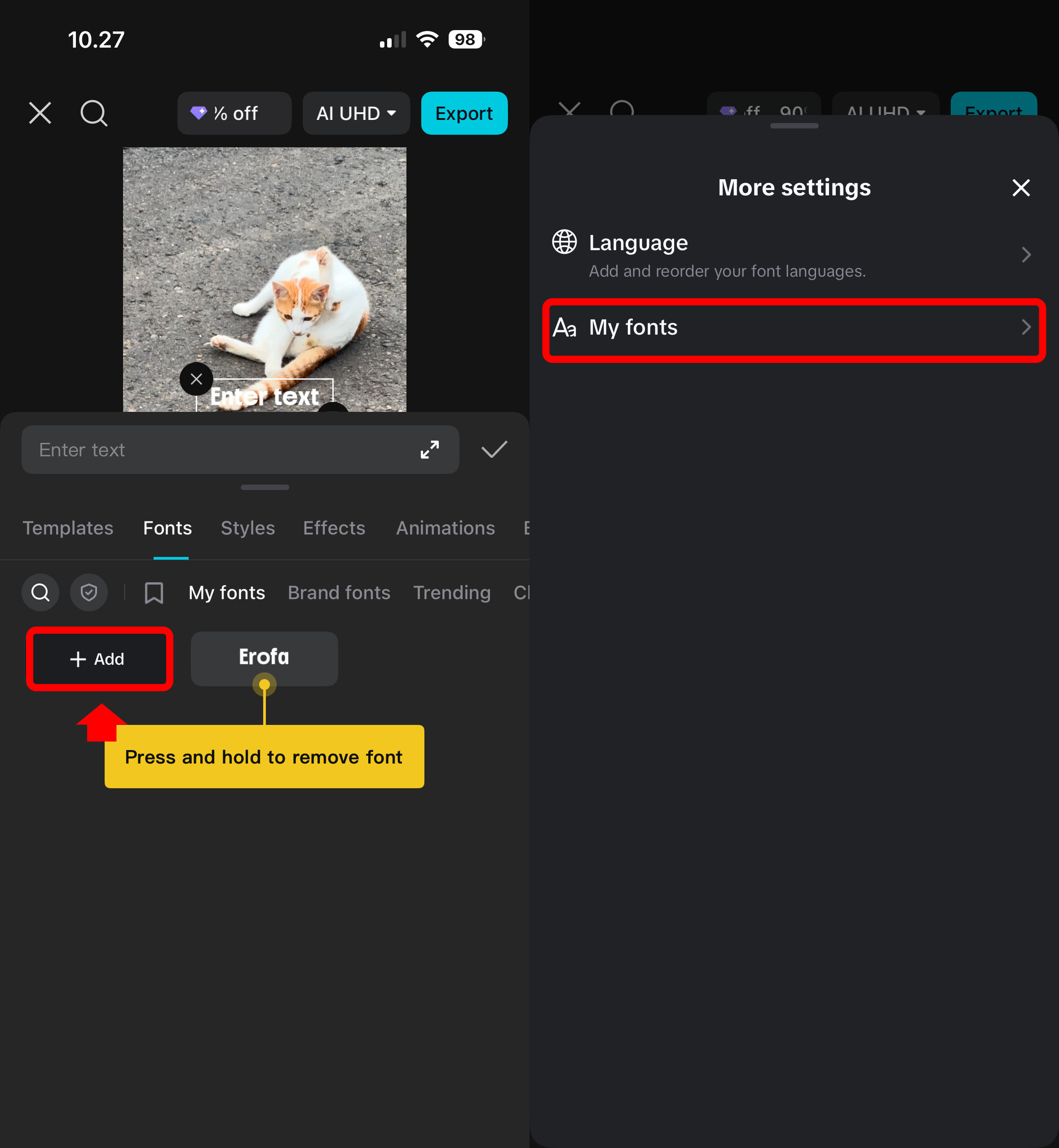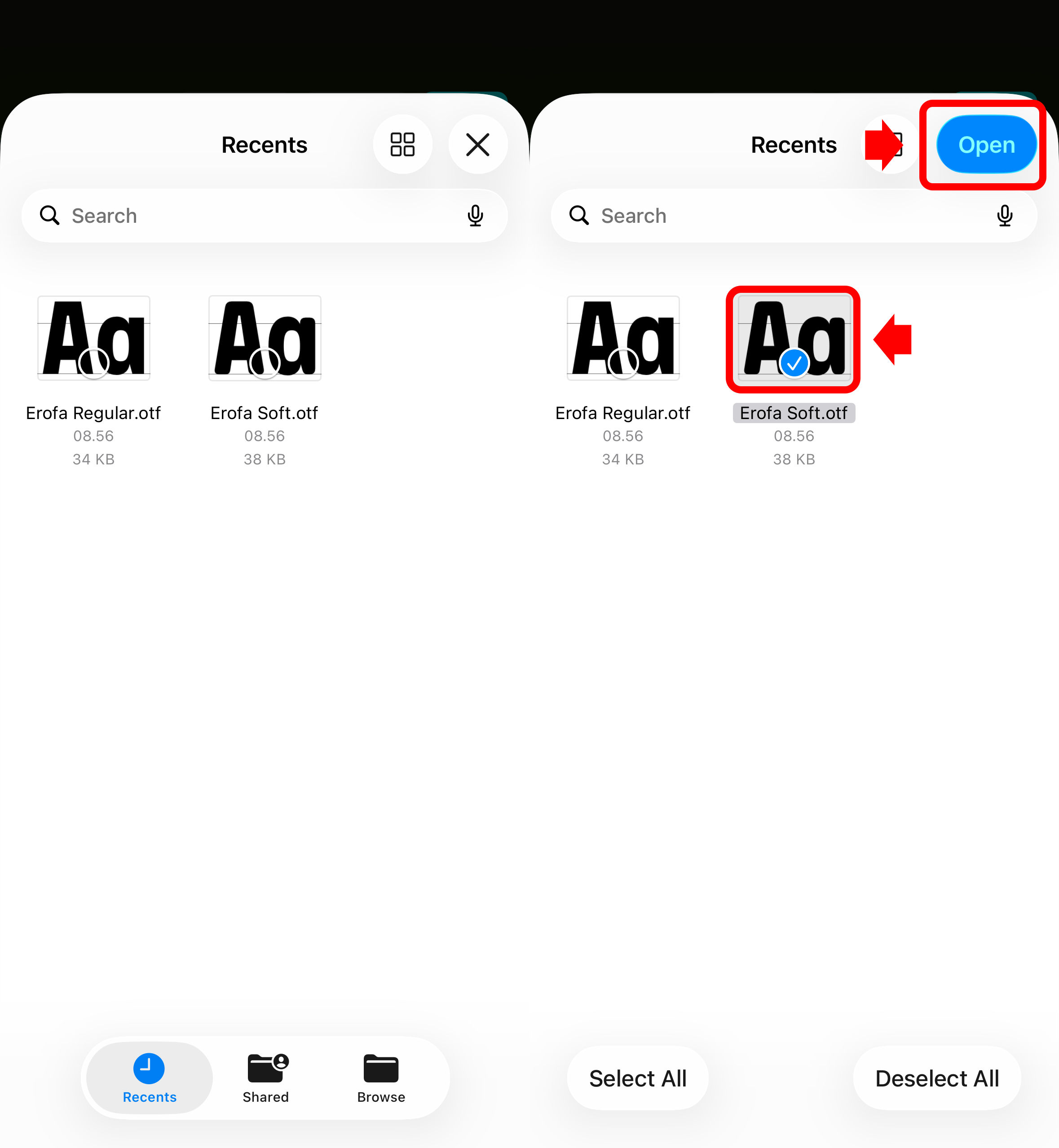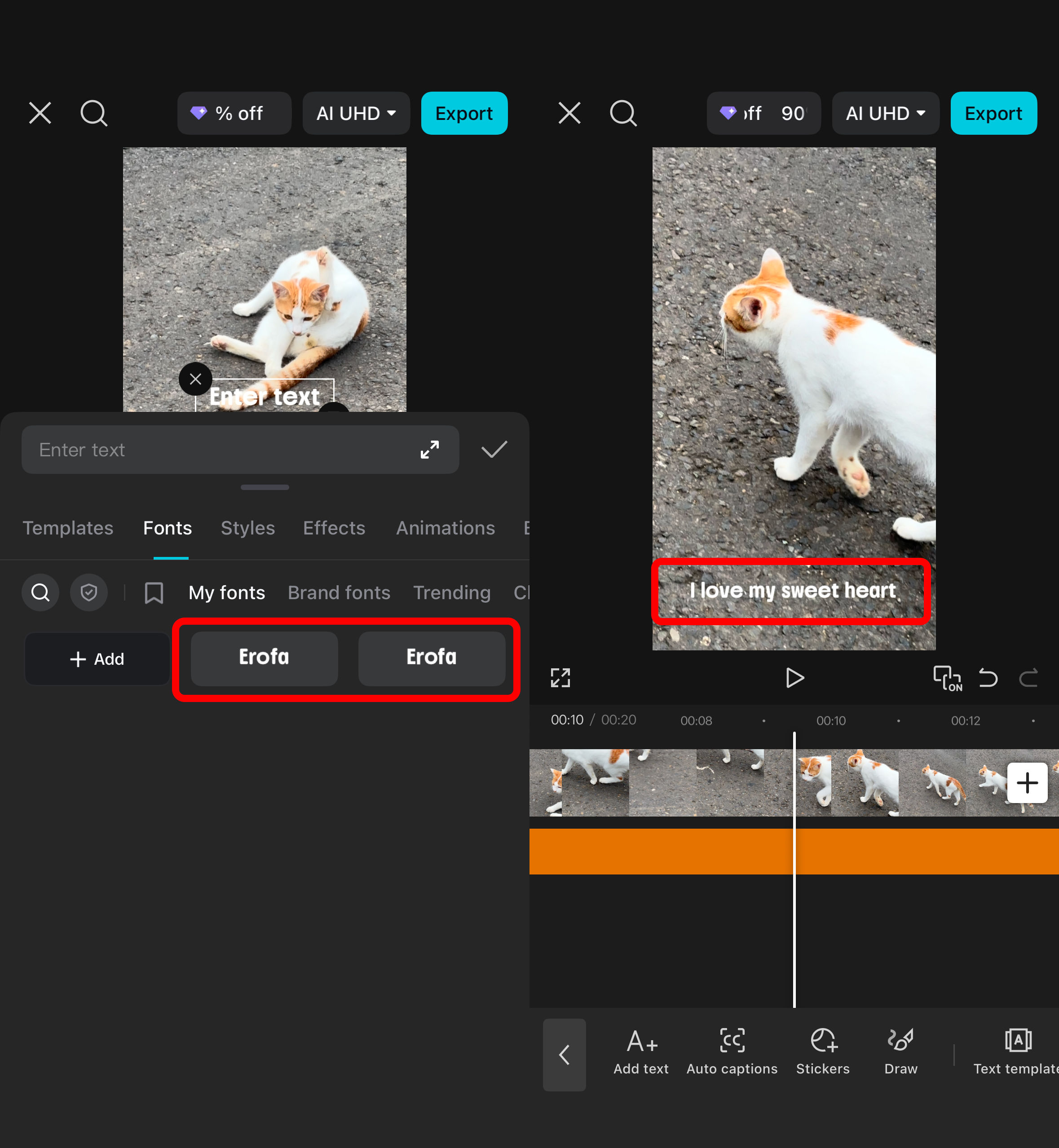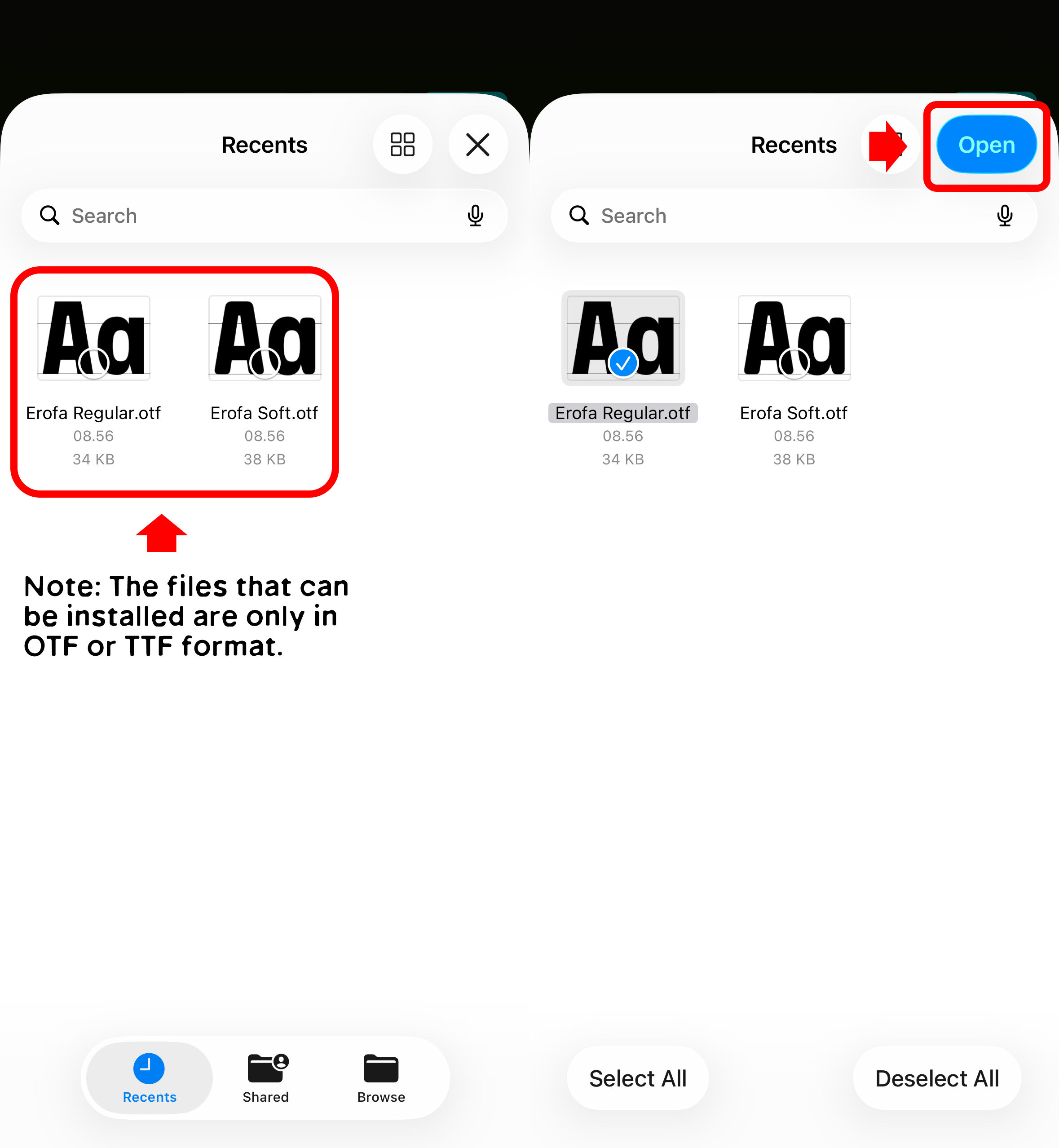
CapCut is one of the most popular video editing apps in the world—and for good reason. It’s free, intuitive, and packed with a wide range of creative tools. However, if you’re a typography enthusiast, you might notice that CapCut’s built-in font library doesn’t always offer the style you’re looking for.
Tips for Better Typography in CapCut Videos
Use contrast to your advantage. A bold, distinctive font on a clean background always reads well on screen. If placing text over busy footage, add a text shadow, outline, or a semi-transparent background shape to keep it legible.
Stick to one or two fonts per project. Use one font for titles and another for captions or body text. Mixing too many typefaces in a single video looks cluttered and unprofessional.
Animate your text. CapCut has excellent built-in text animation presets. A beautiful custom font paired with a smooth entrance animation can instantly elevate even the simplest video.
Match the font to your content mood. A handwritten script feels warm and personal — great for lifestyle or travel content. A geometric sans-serif feels clean and modern — ideal for tech or business videos. Let the typography reinforce the emotion you want to convey.
Typography is one of the most overlooked aspects of video design — but it’s one of the first things viewers notice. Take the time to choose the right font, and your content will immediately feel more professional and intentional.